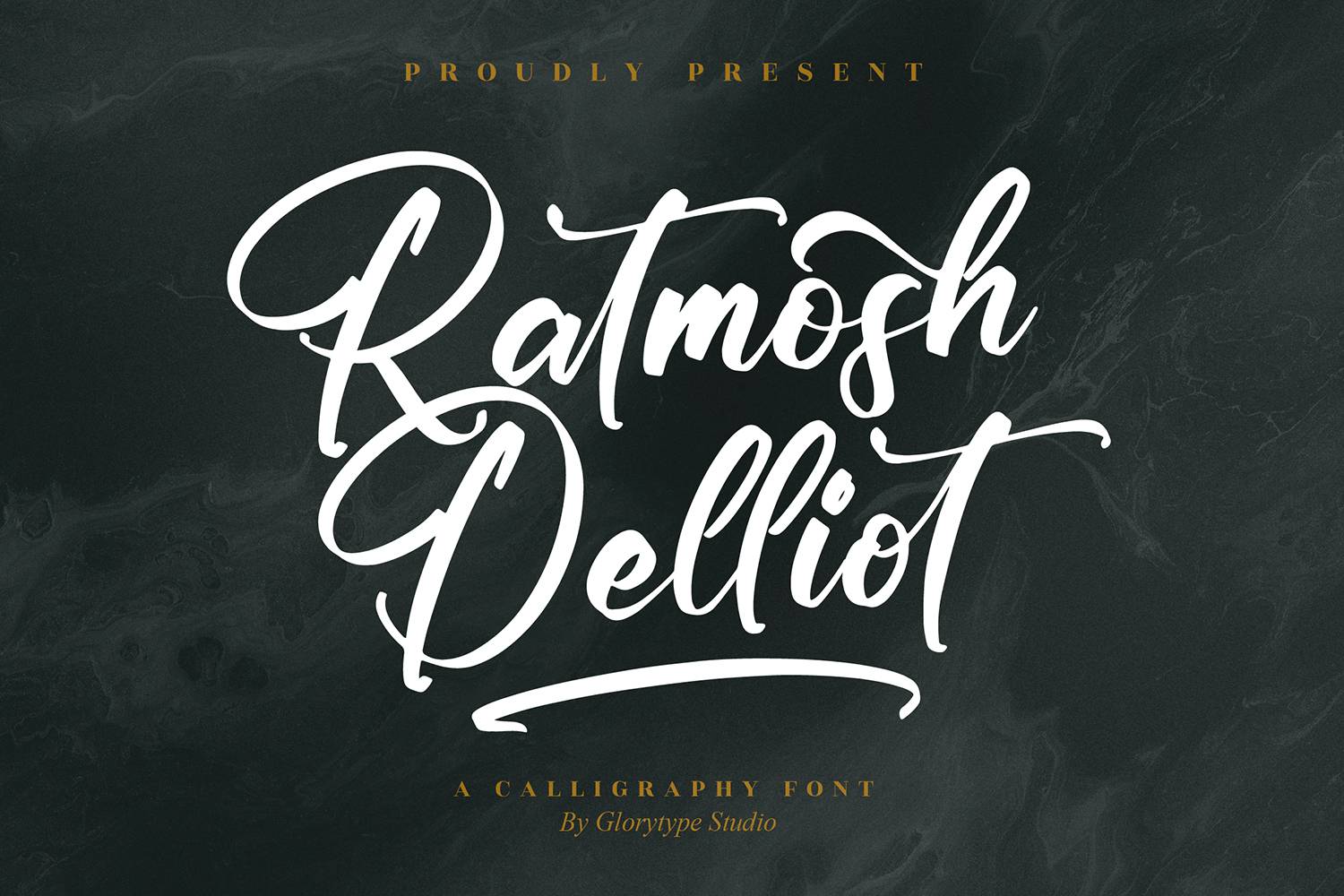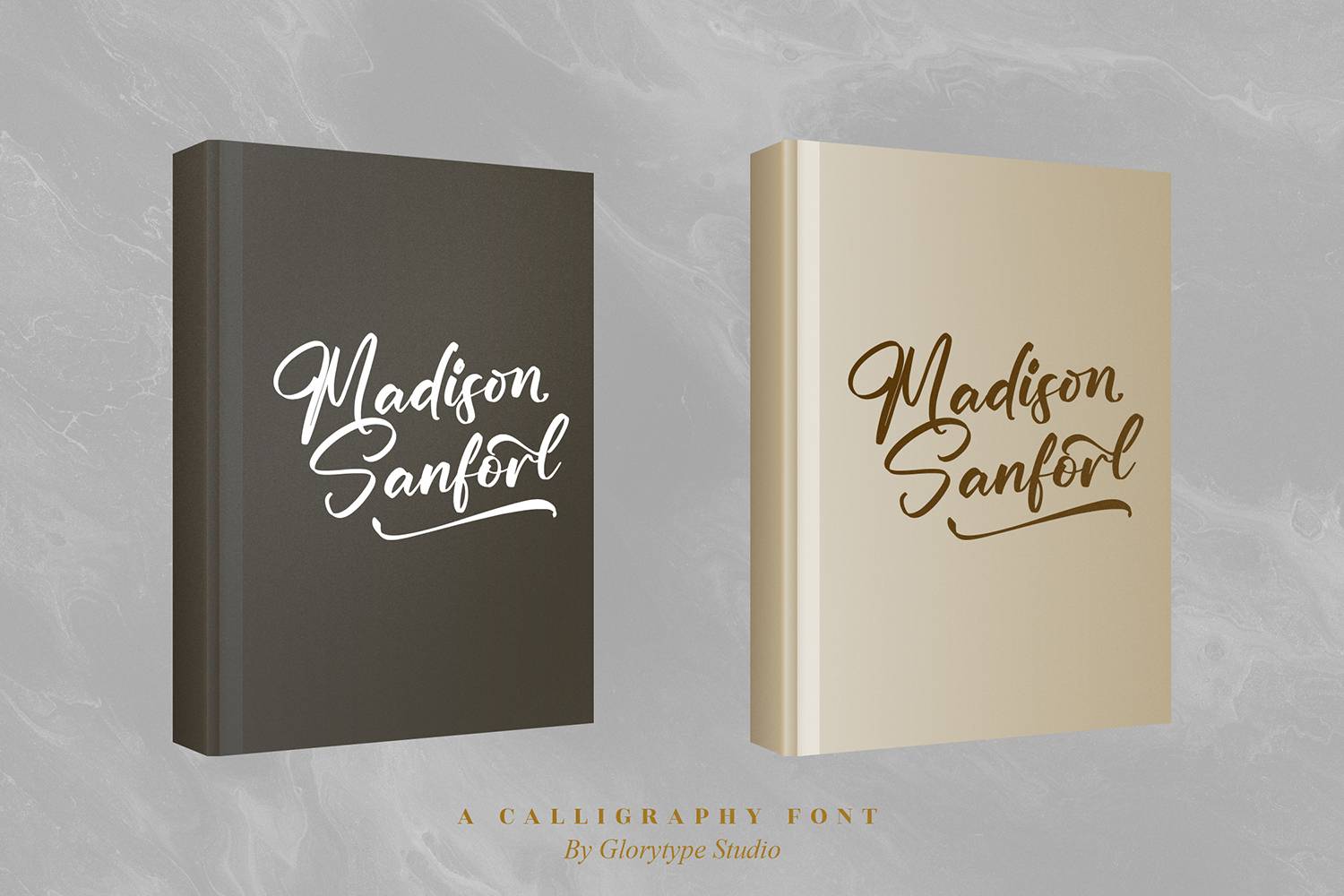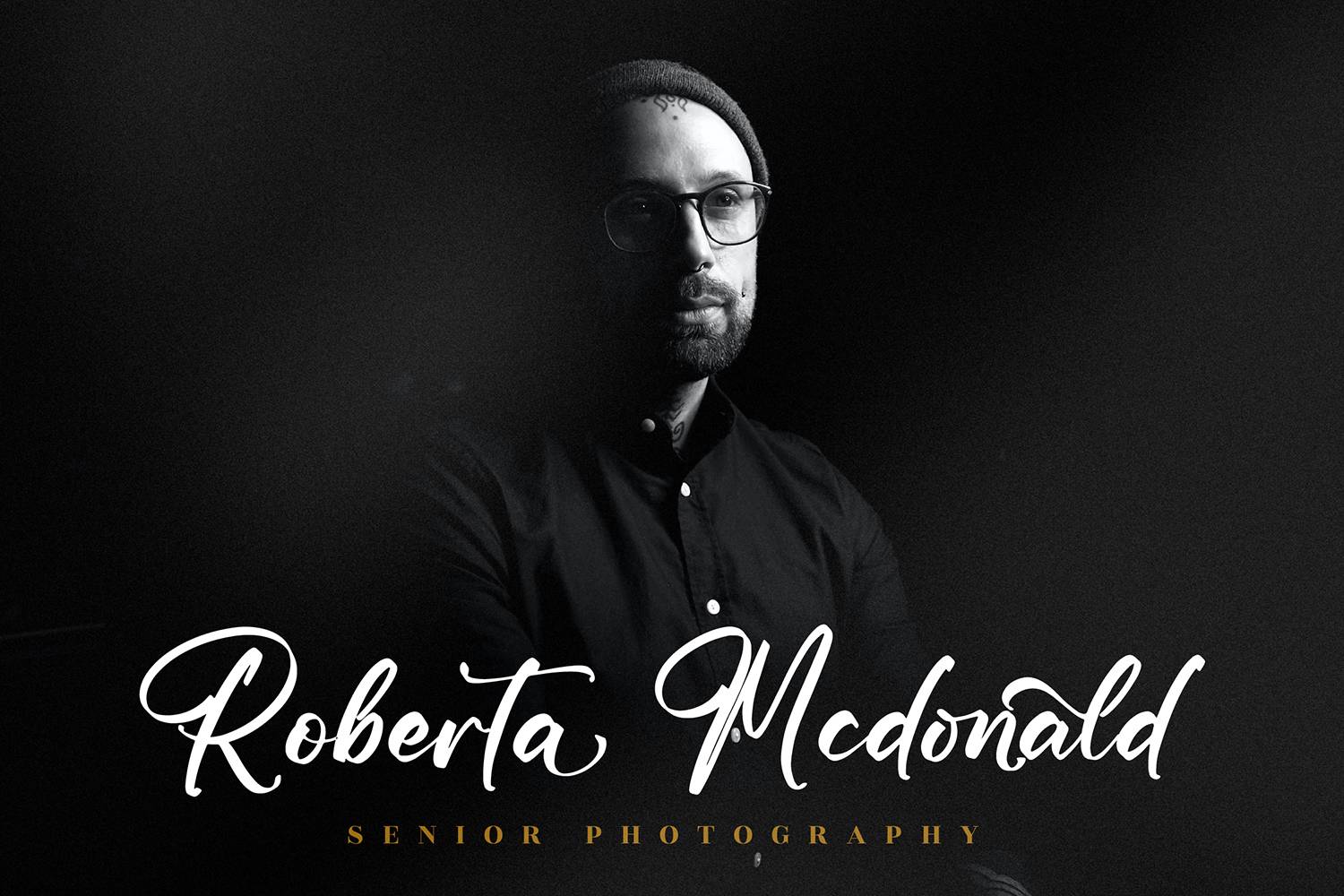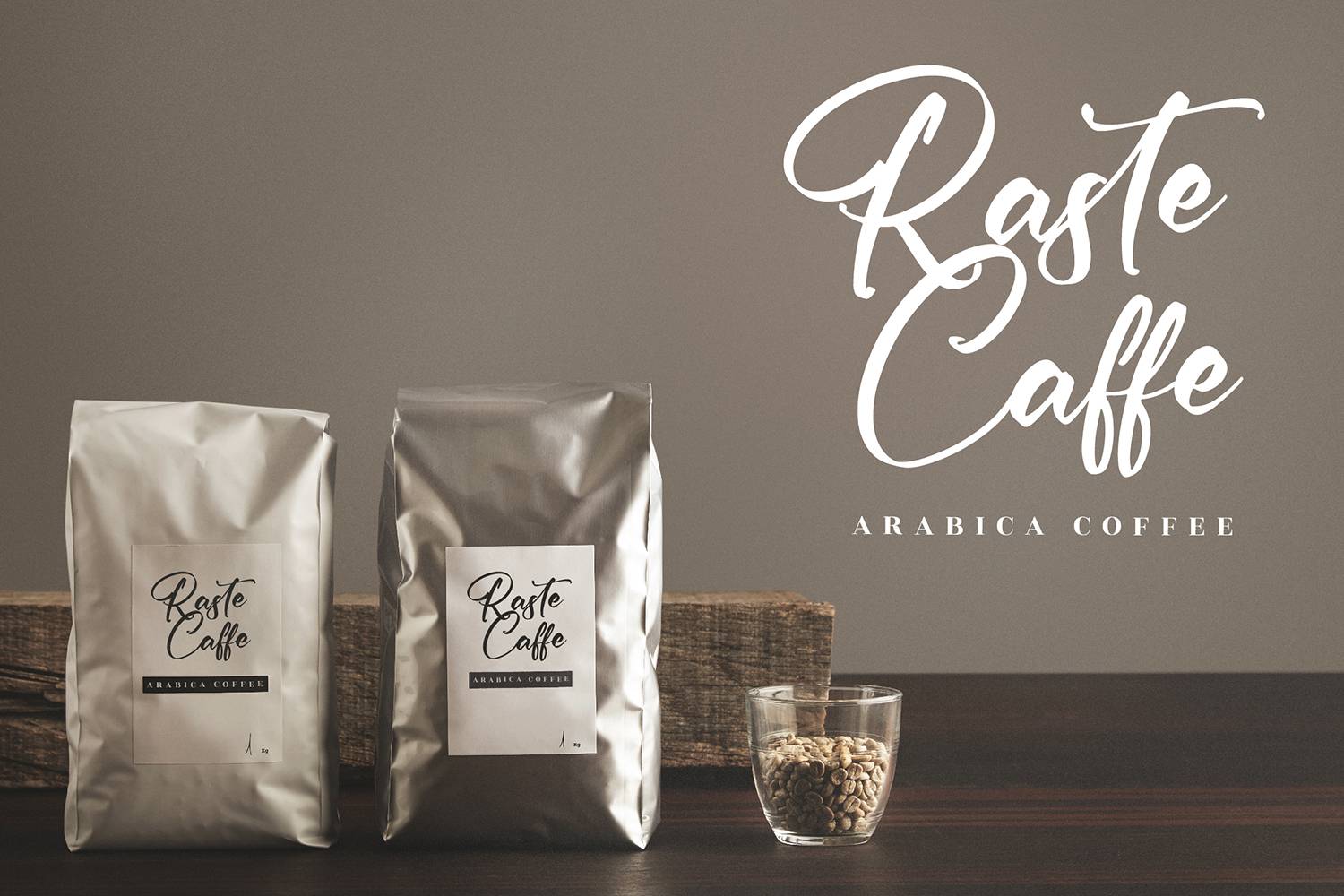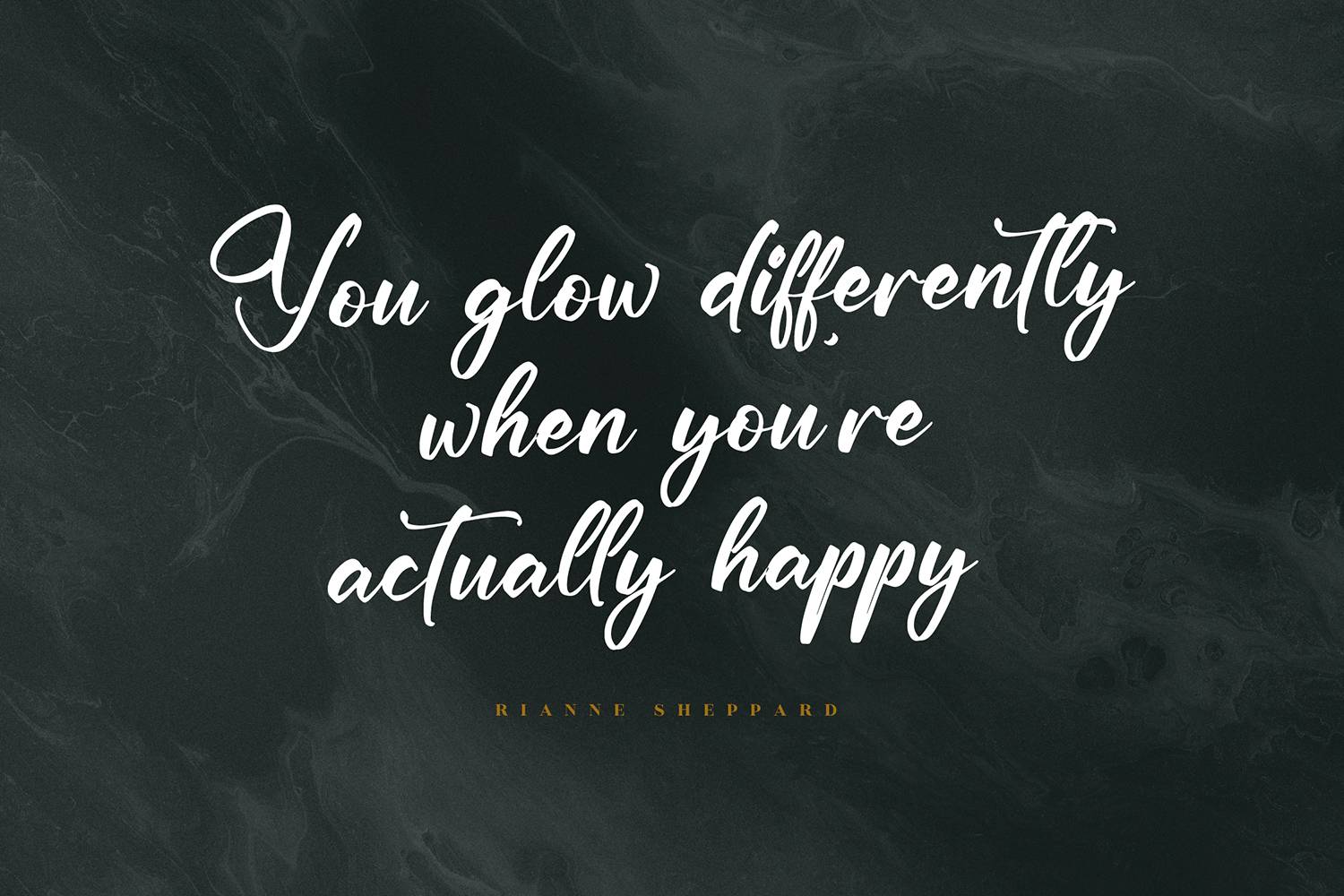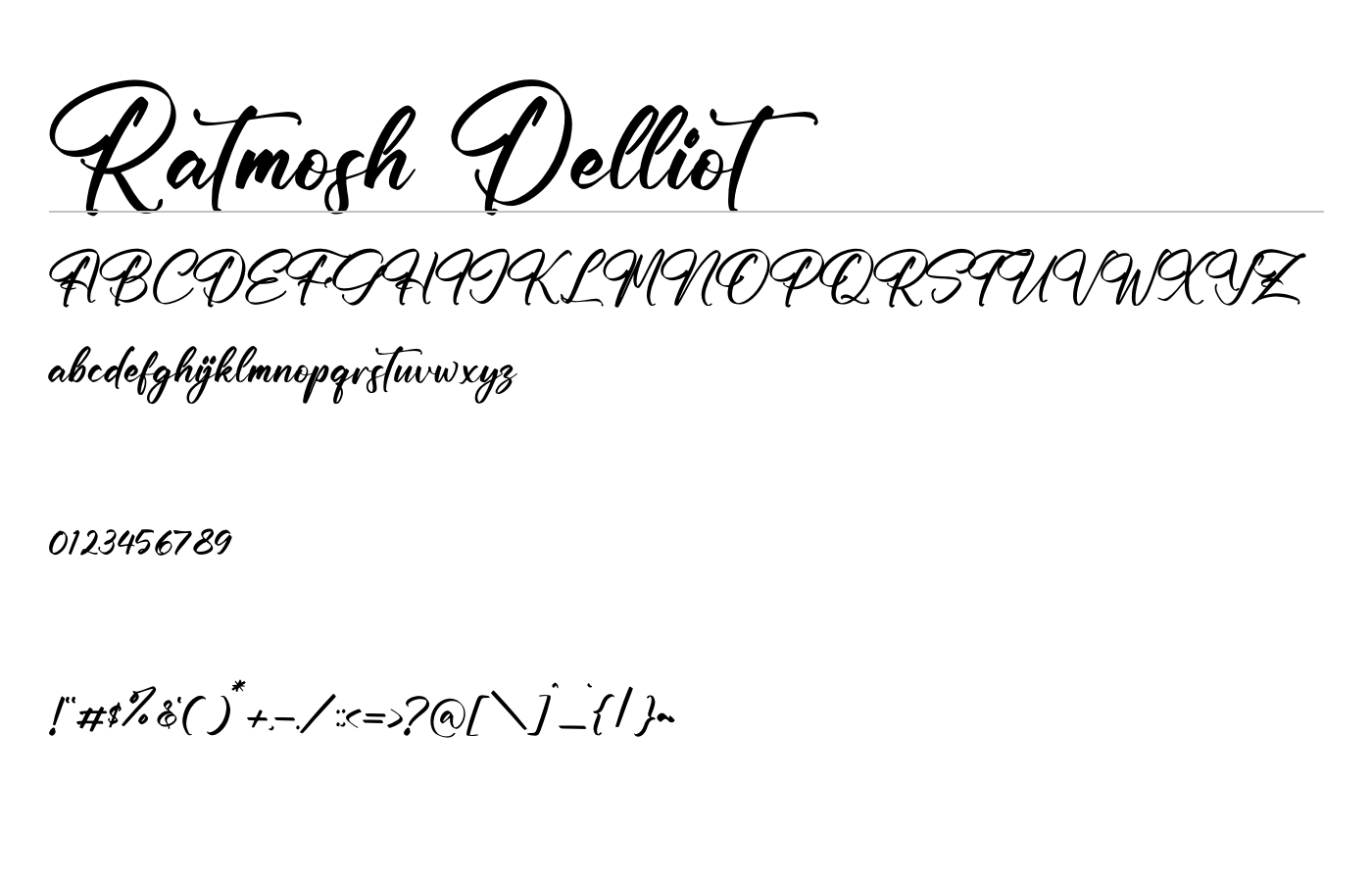
Ratmosh Delliot is a stylish script font with elegant, flowing strokes and a moderate weight that gives it a balanced, graceful presence. Its handwritten character, with smooth curves and slight flourishes, makes it perfect for creative branding, invitations, and headlines that seek a personal, refined touch. This font works well where a sophisticated yet approachable feel is desired, adding charm and warmth to designs.
Ratmosh Delliot Font
About Ratmosh Delliot Font